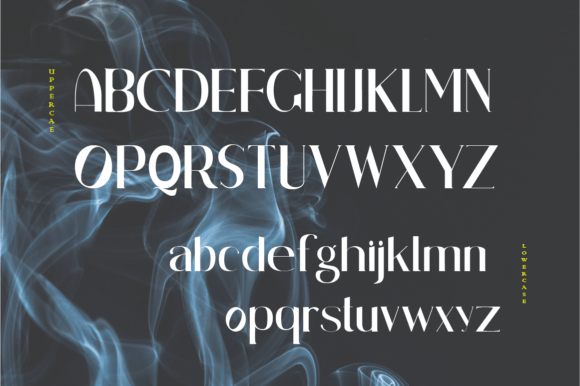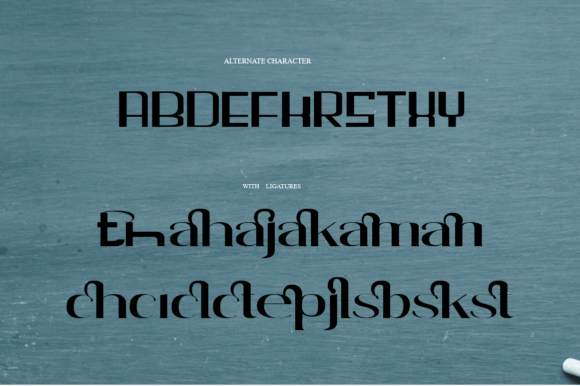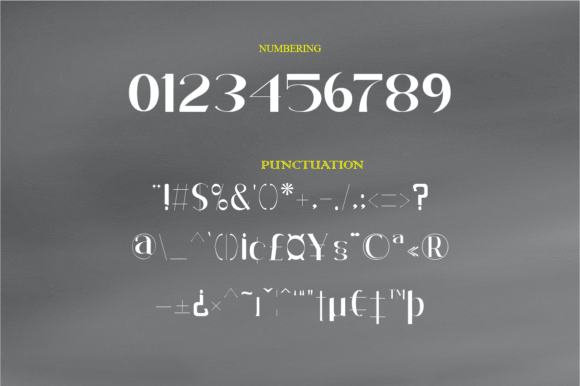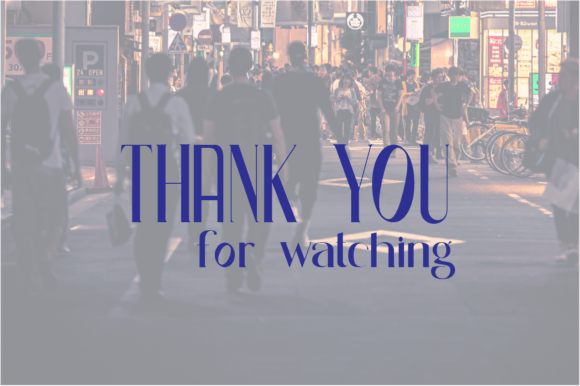
The Perfect Blend of Style and Functionality: Discovering the Aurelia Font
Have you ever stared at a blank design canvas, waiting for inspiration to strike? That moment when everything clicks, and you know exactly which font to choose to make your design truly pop? For designers, finding the right font can be the difference between a good design and a great one.
Enter the Aurelia Font, a modern serif font designed specifically for logos, branding, and digital design. Its versatility and sleek aesthetic make it perfect for a wide range of applications, from posters and packaging to magazine headers and typography. Whether you’re working on a logo for a tech startup or creating a brochure for a fashion brand, the Aurelia Font is sure to elevate your design to the next level.
Aurelia Font Key Features
- Font Family: Aurelia is a beautiful, elegant sans-serif font, ideal for both body and heading text.
- Character Set: The font includes a wide range of characters, including Latin, Greek, Cyrillic, and many special characters.
- Unique Characteristics: The font features a unique combination of modern and elegant lines, making it perfect for high-end designs and publications.
Aurelia Font Review
Aurelia Font is a stunning font that I’ve had the pleasure of working with. It’s a beautiful blend of elegance and sophistication, making it perfect for high-end branding, luxury goods, and upscale designs. ✨ The font’s clean lines and subtle curves give it a sense of refinement, while its unique character set adds a touch of whimsy.
- ✨ Elegant and sophisticated design
- ✨ Unique character set for added visual interest
- ✨ Highly legible, even at smaller font sizes
- ✨ Wide range of language support
- ⚠️ Limited to script and display use; not ideal for body text
- ⚠️ May not be suitable for very small or very large font sizes
- ⚠️ Some users may find the font’s style too ornate or over-the-top
Overall, I’m impressed with the Aurelia Font’s versatility and style. While it may not be suitable for every design project, it’s a great choice for those looking to add a touch of luxury and sophistication to their branding or design work. With proper use, it can elevate any design to the next level.
Tips for Getting the Most Out of Aurelia Font
Here are some tips for getting the most out of Aurelia Font:
- Use Aurelia Font for headings and titles to add a touch of elegance.
- Pair Aurelia Font with other fonts to create a unique and stylish combination.
- Experiment with different font sizes and colors to add visual interest.
Aurelia Font is perfect for:
- Design projects that require a touch of sophistication and elegance.
4. Montserrat Font
Montserrat Font is a geometric sans-serif typeface that is highly legible and modern. It is suitable for use in digital interfaces, branding materials, and urban settings. Montserrat Font is more modern and edgy compared to Aurelia Font, which has a more classic feel.
Exploring Aurelia Font
Aurora Typography
Aurora Typography is a stunning visual project that showcases the elegant and flowing nature of the Aurelia Font. This project involves creating a 3D typography piece where the Aurelia Font is used to spell out the word ‘Aurora’ in a circular motion.